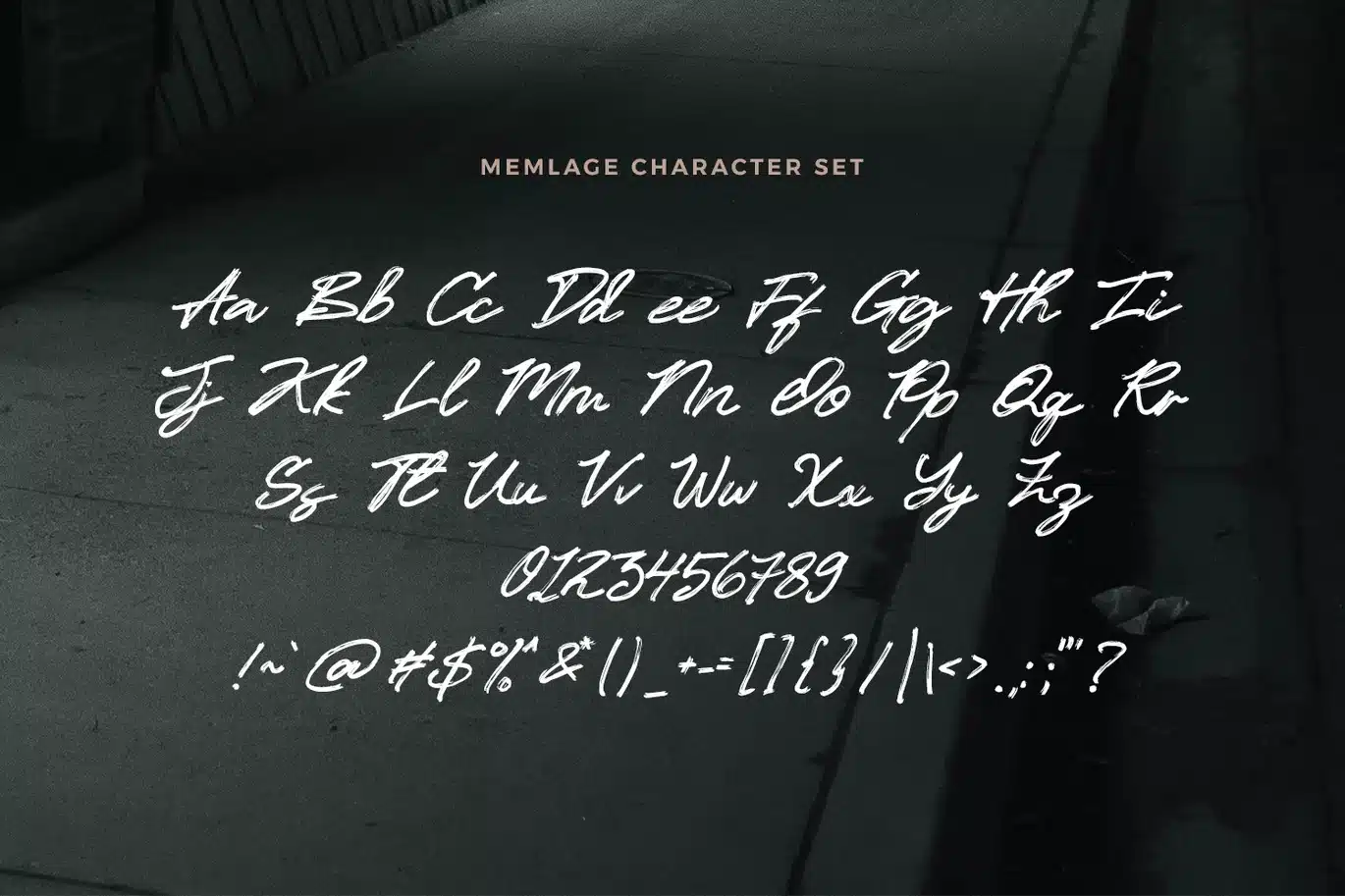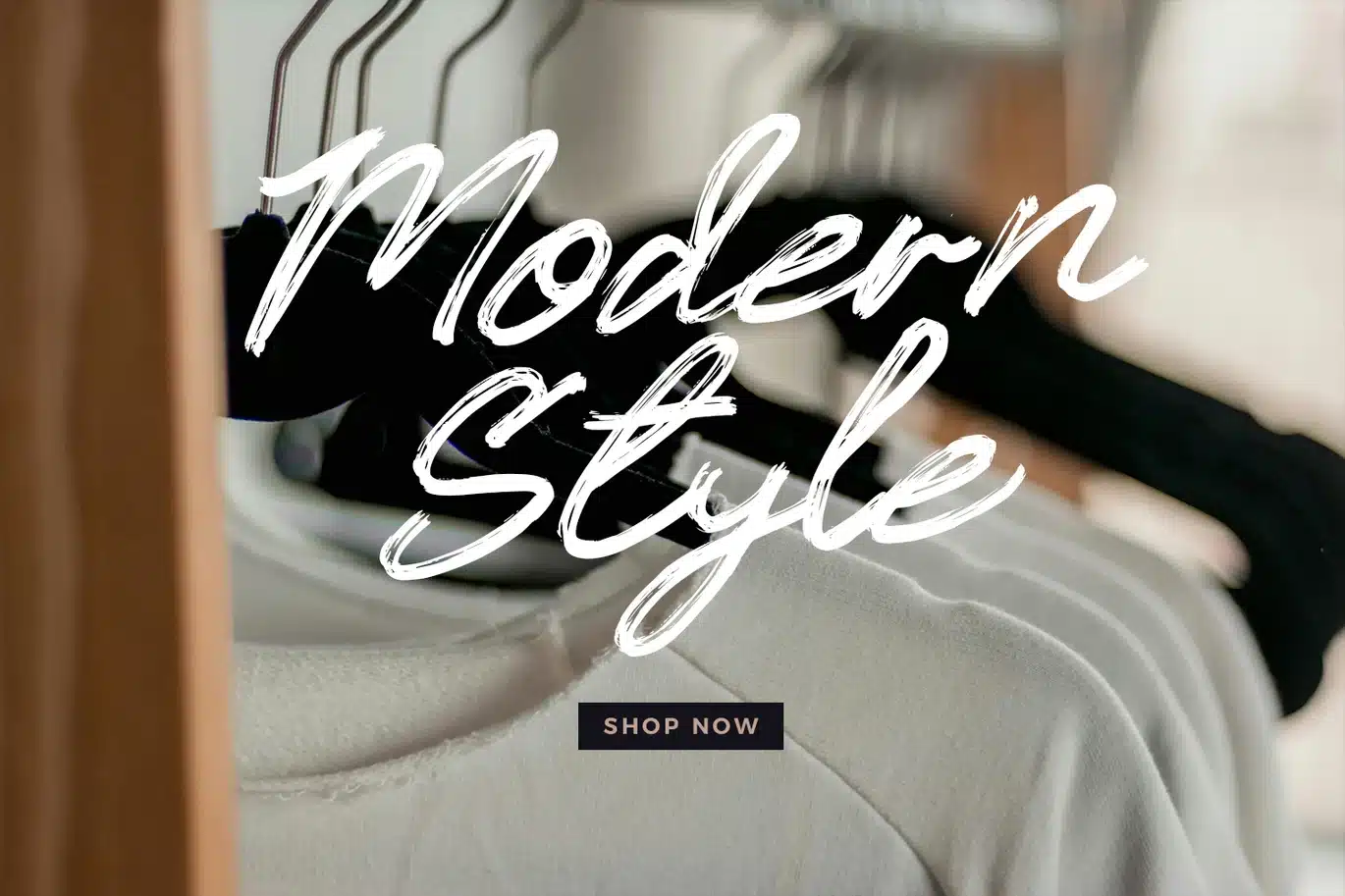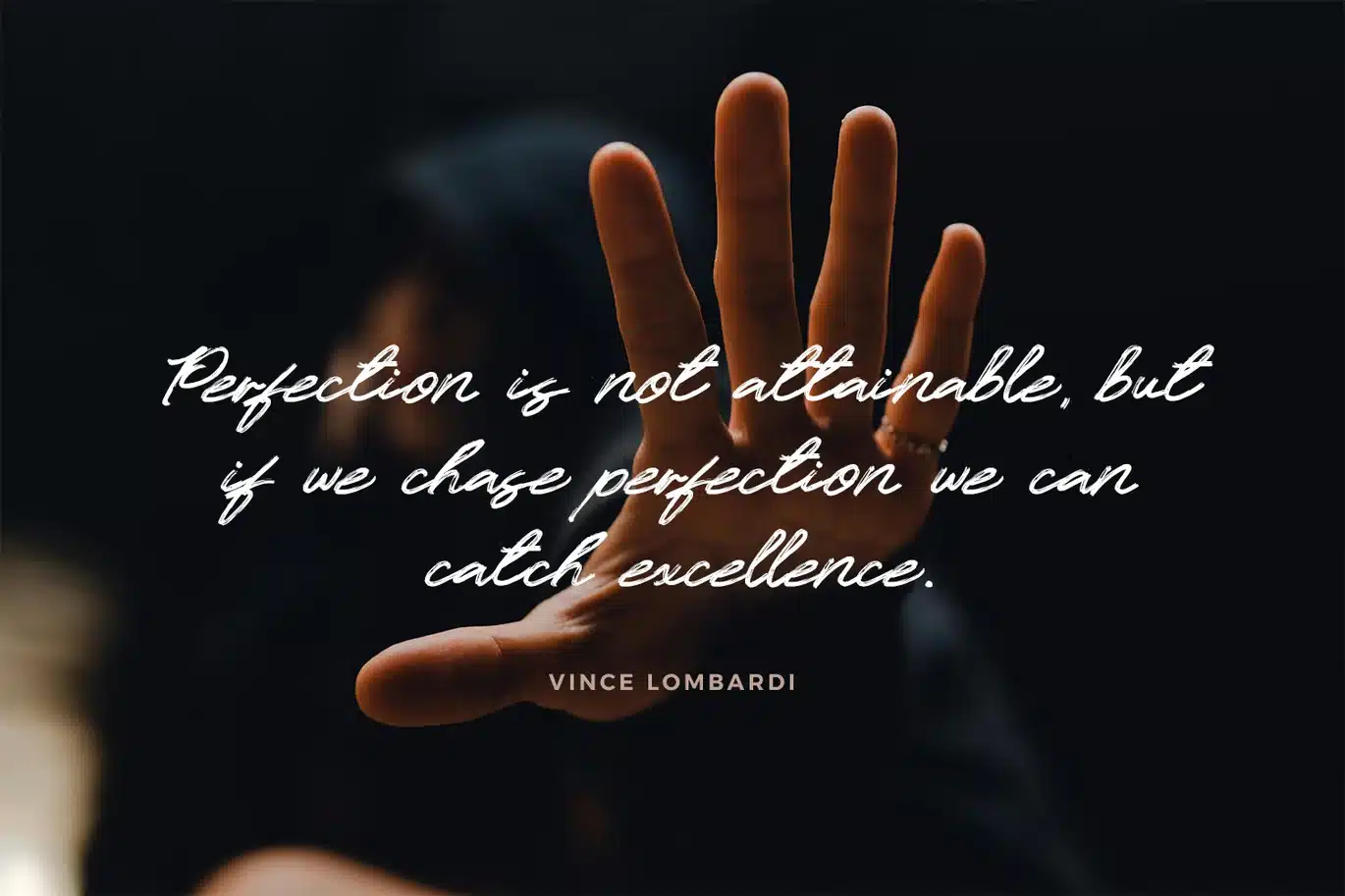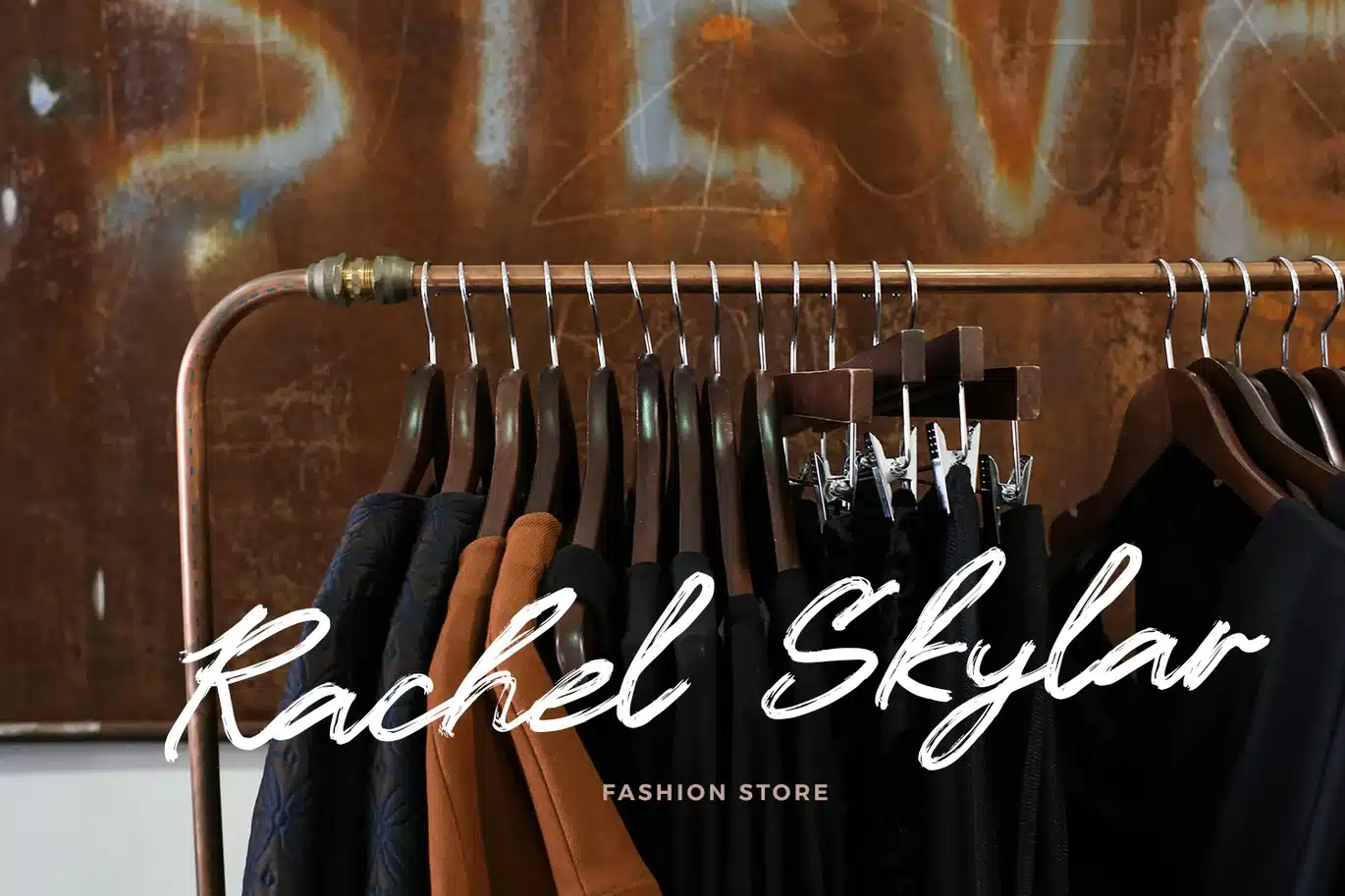
Memlage – The Elegant Brush Font
Memlage - The Elegant Brush Font
Memlage is an elegant brush font designed with graceful strokes and refined hand-painted texture. Inspired by modern brush lettering, this font combines smooth flowing forms with expressive brush character to create a stylish and sophisticated visual presence. Its balanced rhythm and natural curves deliver elegance while maintaining clear readability.